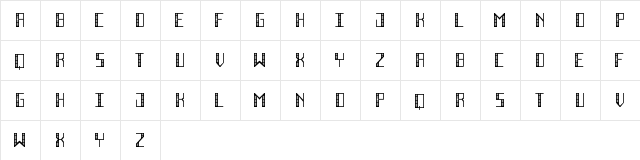
Deco Future Inline Regular
Design Context for Deco Future Inline Typeface
Deco Future Inline channels digital-age aesthetics through its sharp, structured letterforms — ideal for brands that want to signal innovation.